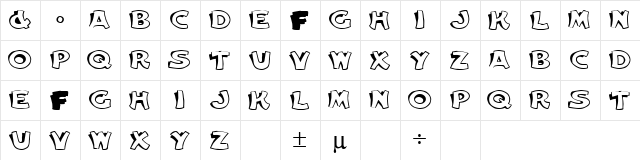
ELEANOR Regular
Design Context for ELEANOR Typeface
ELEANOR is a composed and adaptable typeface that performs quietly and consistently across a wide range of design contexts.